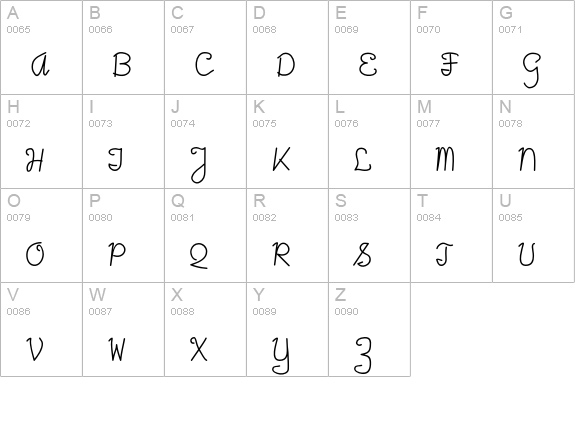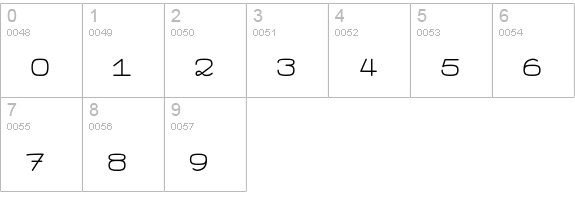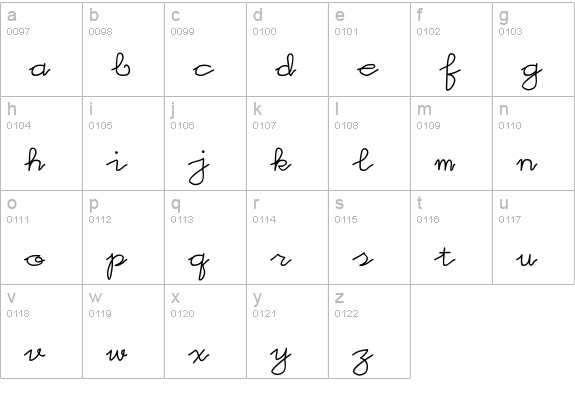
Pinnoccio Font Details
Introducing Pinnoccio Font, a versatile and captivating typeface that will add a touch of whimsy and playfulness to any design project. This delightful font has been meticulously crafted with intricate details and a unique personality, making it the perfect choice for those seeking a font that stands out from the crowd. Pinnoccio Font showcases a perfect balance between classic elegance and contemporary charm, making it suitable for a wide range of applications. Whether you are designing a logo, creating eye-catching headlines, or crafting a beautiful invitation, Pinnoccio will effortlessly elevate your design and leave a lasting impression on your audience. This font boasts a wide range of characters, including uppercase and lowercase letters, numerals, punctuation marks, and special symbols, ensuring that you have all the tools you need to bring your creative vision to life. The characters are flawlessly designed, with smooth curves and clean lines that give Pinnoccio a polished and professional look. As a bonus, Pinnoccio Font is freely available to download at FontsMarket.com, allowing you to use it in your personal and commercial projects without any restrictions. This means that you can unleash your creativity without worrying about additional costs or licensing issues. Simply visit FontsMarket.com and start exploring the endless possibilities that Pinnoccio Font has to offer. So why wait? Download Pinnoccio Font today and let your imagination run wild. With its unique charm and versatility, this font is sure to become a go-to choice for designers and creatives alike. Give your designs a touch of magic and enchantment with Pinnoccio Font, and watch as your projects come to life with style and originality.